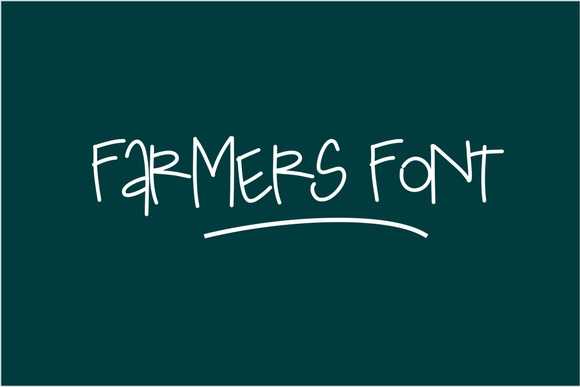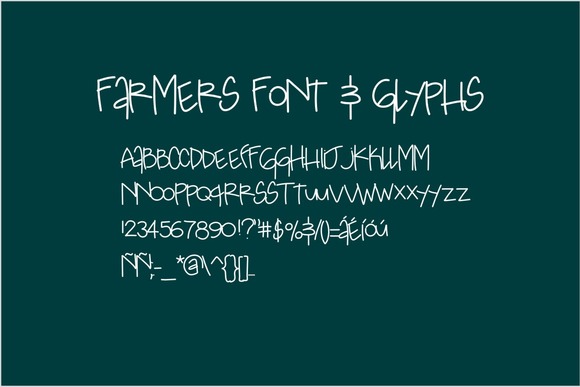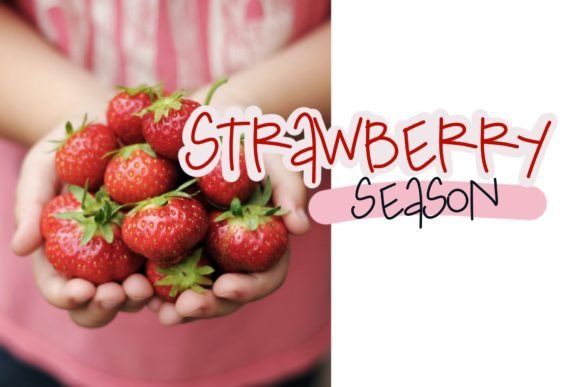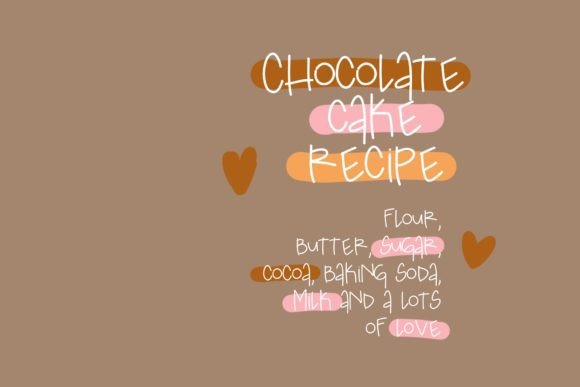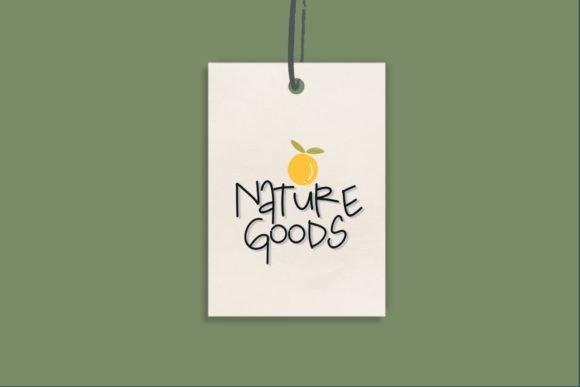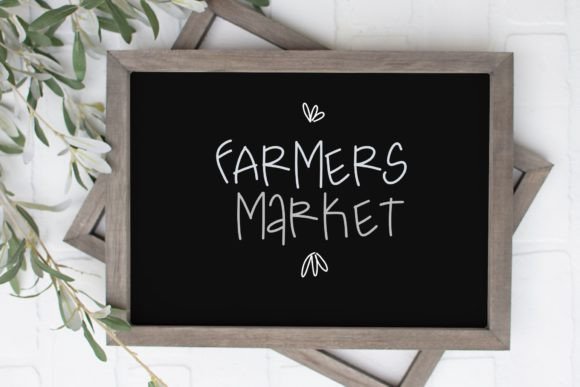
Discover the Charm of Farmers Font: A Unique and Versatile Typeface
Are you a designer, crafty enthusiast, or simply someone who appreciates the aesthetic of handwritten fonts? Look no further than the Farmers Font, a distinctive and irregular glyph font that’s perfect for adding a personal touch to your projects. In this article, we’ll explore the characteristics, uses, and benefits of Farmers Font, and why it’s become a popular choice among creatives.
What is Farmers Font?
Farmers Font is a one-of-a-kind typeface that combines the best of both worlds: small and capital letters. Its irregular glyph design gives it a charming, hand-written feel that’s reminiscent of blackboard signs found in rustic restaurants and cafes. The font’s unique blend of uppercase and lowercase letters creates a visually appealing contrast that’s sure to capture attention.
Origins and Inspiration
Farmers Font was originally designed with restaurant blackboards in mind. The creator’s goal was to craft a font that would effortlessly convey a sense of rustic charm and informality, perfect for menus, signage, and other display purposes. However, its versatility soon became apparent, and the font has since been adopted by designers and crafters for a wide range of applications.
- Irregular Glyph Design: Farmers Font boasts a distinctive, hand-written look that’s perfect for creating a personal and informal atmosphere.
- Mix of Small and Capital Letters: The font’s unique combination of uppercase and lowercase letters adds visual interest and creates a sense of playfulness.
- Highly Versatile: Farmers Font can be used for a wide range of projects, from restaurant menus and signage to craft projects, packaging, and digital media.
- Easy to Read: Despite its irregular design, Farmers Font remains surprisingly legible, making it suitable for both display and body text.
Uses and Applications
So, how can you use Farmers Font in your projects? The possibilities are endless! Here are a few ideas to get you started:
- Restaurant Menus and Signage: Use Farmers Font to create eye-catching menus, price lists, and signs that evoke a sense of rustic charm.
- Crafting and DIY Projects: Add a personal touch to your craft projects, such as handmade cards, gift tags, and packaging.
- Digital Media: Use Farmers Font in your social media graphics, blog posts, and website design to add a touch of whimsy and personality.
- Packaging and Labeling: Stand out from the crowd with Farmers Font on your product packaging, labels, and branding materials.
Tips and Tricks for Using Farmers Font
To get the most out of Farmers Font, here are a few tips to keep in mind:
- Experiment with Font Sizes: Farmers Font looks great in a variety of sizes, from large display text to smaller body text.
- Mix and Match with Other Fonts: Combine Farmers Font with other fonts to create a unique and visually appealing typography scheme.
- Play with Colors and Textures: Add depth and interest to your text with creative color schemes and textures.
Farmers Font is a one-of-a-kind typeface that’s sure to add a touch of personality and charm to your projects. Its unique blend of uppercase and lowercase letters, irregular glyph design, and versatility make it a popular choice among designers, crafters, and creatives. Whether you’re looking to create a rustic restaurant menu or add a personal touch to your craft projects, Farmers Font is the perfect choice. So why not give it a try and see what creative possibilities unfold?